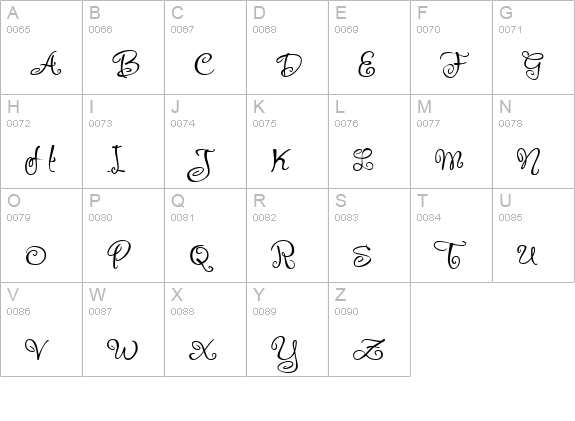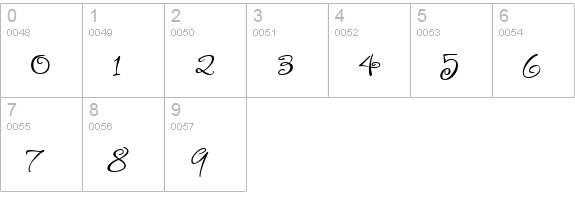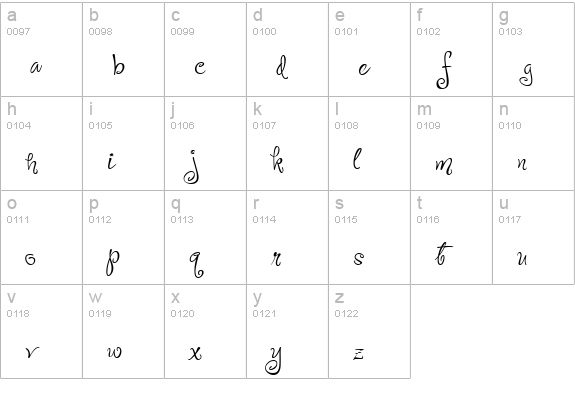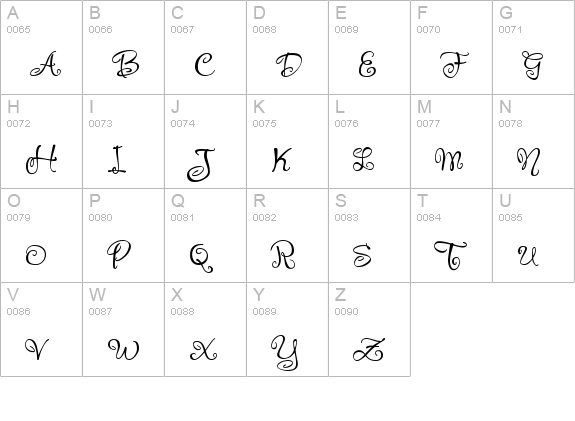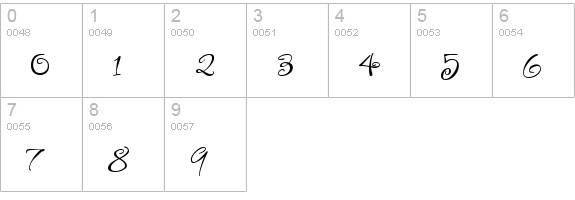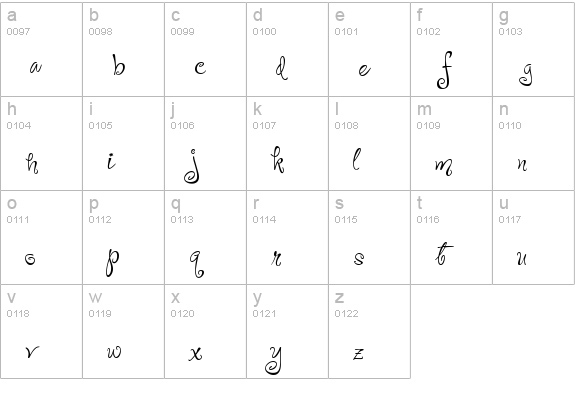
P22 OhLey Font Details
P22 OhLey font is a stunning typeface that beautifully combines elegance and legibility. With its delicate curves and refined strokes, this font exudes a sense of sophistication and style. Its timeless design makes it suitable for a wide range of projects, from wedding invitations to branding materials. What sets P22 OhLey font apart is not only its visual appeal, but also its accessibility. This font is freely available to download at FontsMarket.com, making it accessible to designers, artists, and enthusiasts alike. Whether you are a professional graphic designer or a hobbyist, you can easily incorporate this font into your creative endeavors without any cost. The versatility of P22 OhLey font is truly remarkable. Its graceful letterforms make it suitable for both display and text purposes. Whether you are designing a logo, crafting a headline, or setting body text, this font will seamlessly adapt to your needs, adding a touch of sophistication to any project. P22 OhLey font also boasts an extensive character set, including uppercase and lowercase letters, numbers, punctuation marks, and special symbols. This wide range of characters ensures that you have everything you need to fully express your creativity and communicate your message effectively. With P22 OhLey font, you can add a touch of elegance to your designs while enjoying the freedom of a freely available typeface. Its timeless design and accessibility make it a valuable addition to any designer's toolkit. So why wait? Download P22 OhLey font today from FontsMarket.com and unlock the potential to create stunning and captivating designs.